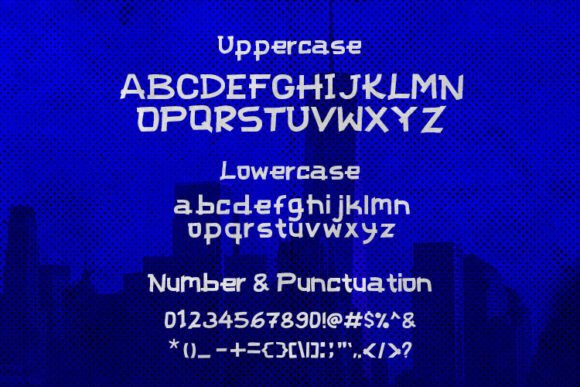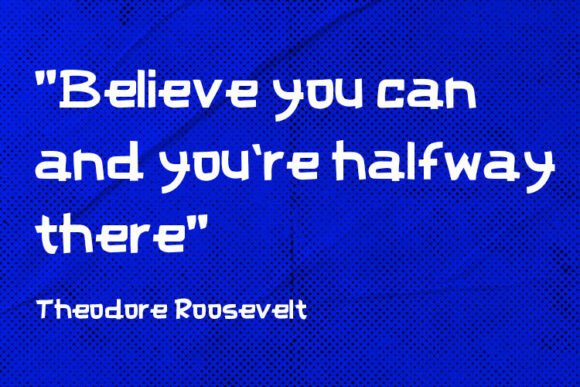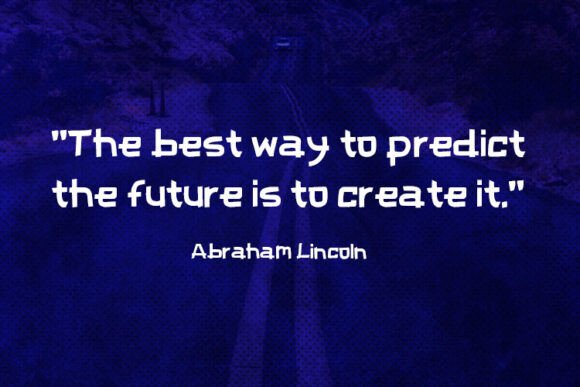
Introduction to Rockin Font
Presenting Rockin – a timeless typeface that breathes life into the bygone era.
This vintage-styled font, adorned with decorative elements, subtly weaves in an air of classic sophistication to your designs With its unparalleled style, Rockin seamlessly infuses your creative canvas with a touch of antiquity yet keeps it modernistically trendy.
Key Features of Rockin Font